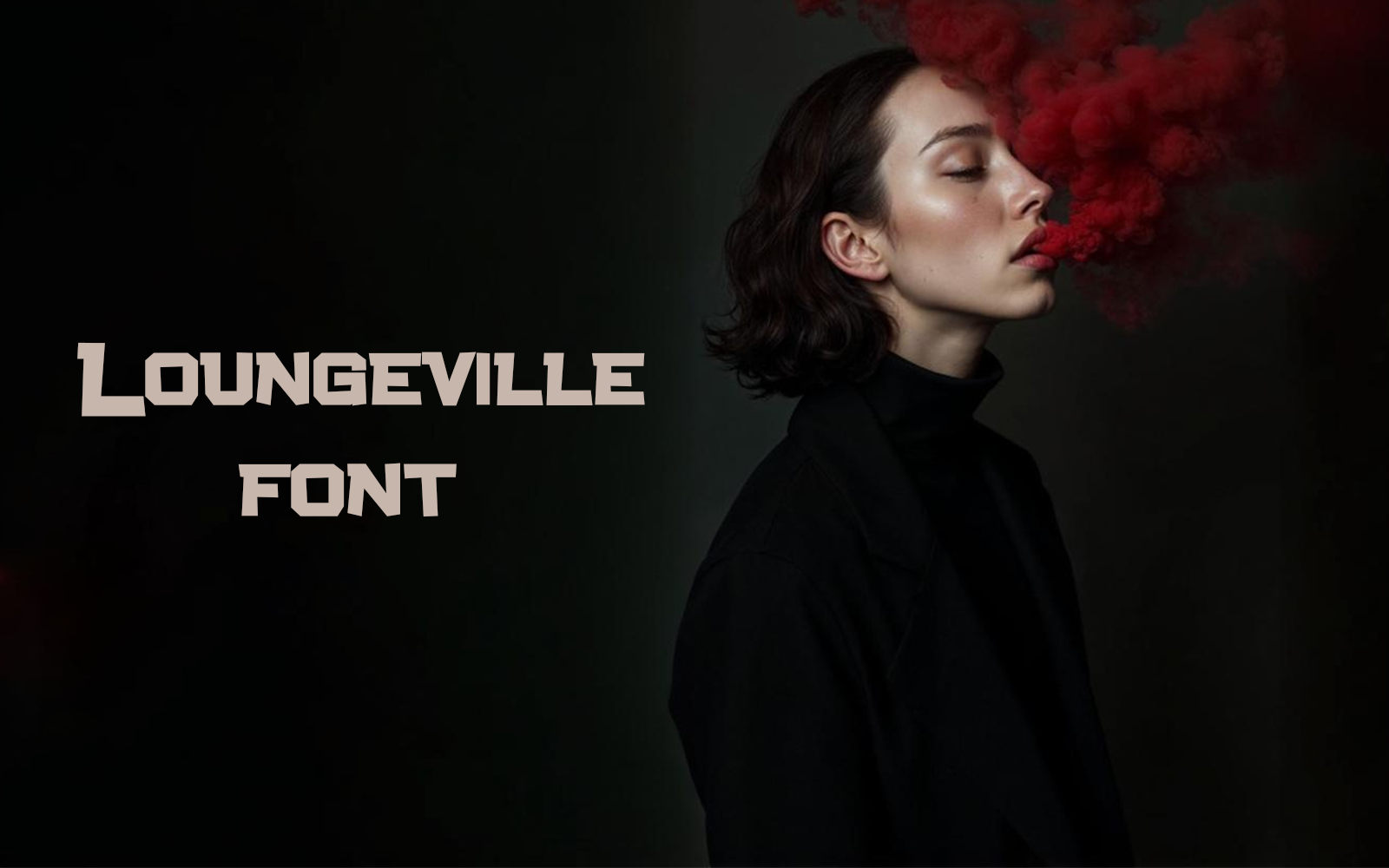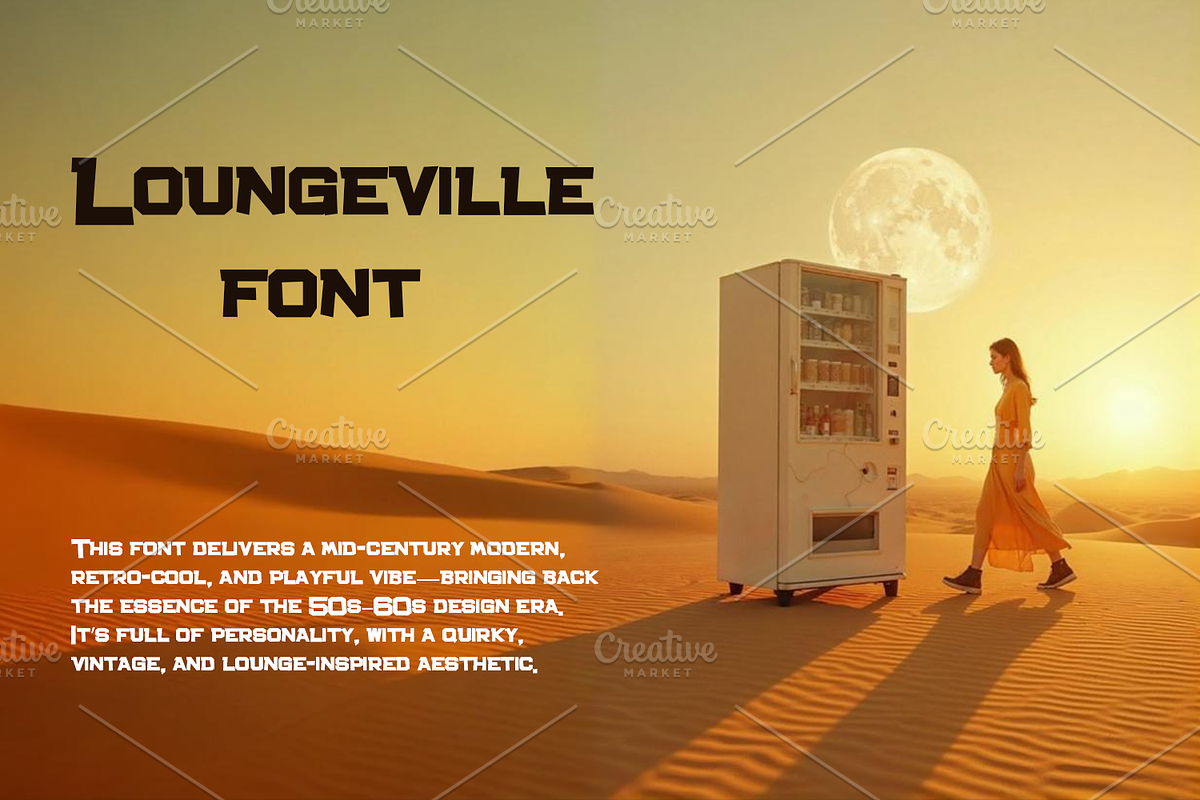
Say hello to Loungeville – a font that swings with mid-century charm. With its bold curves and carefree style, it's perfect for bringing nostalgia to life. Whether you're designing a cocktail menu, a retro logo, or a funky event invite, Loungeville sets the mood. Turn back the clock. Keep the cool.